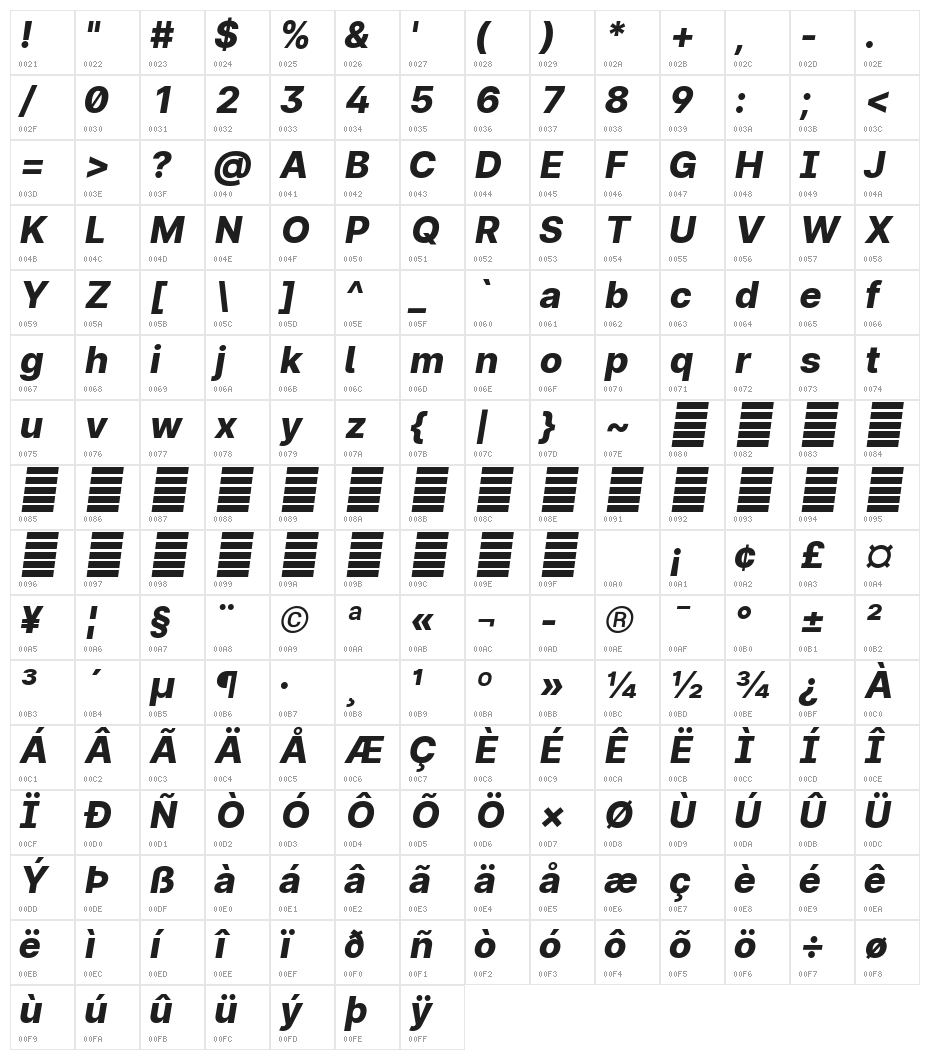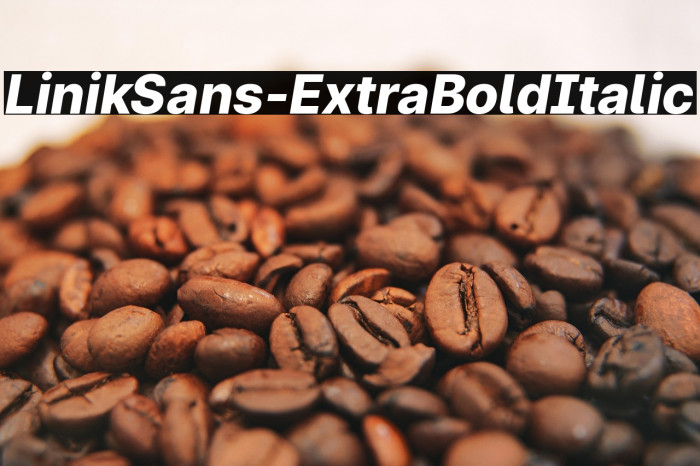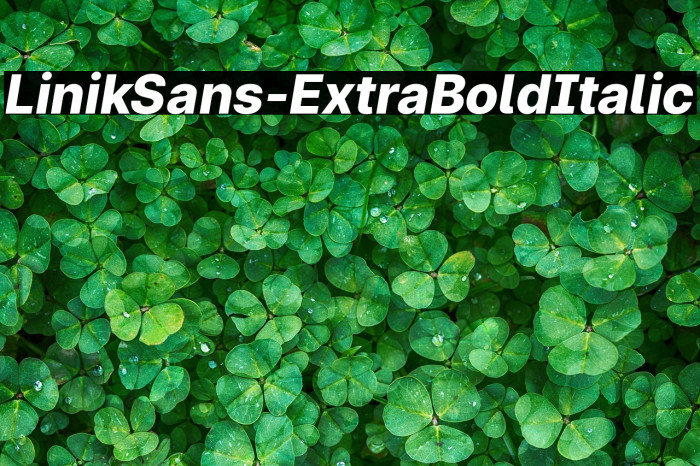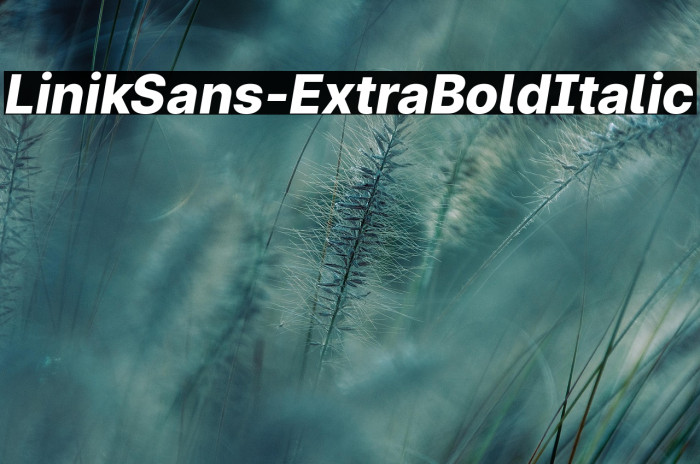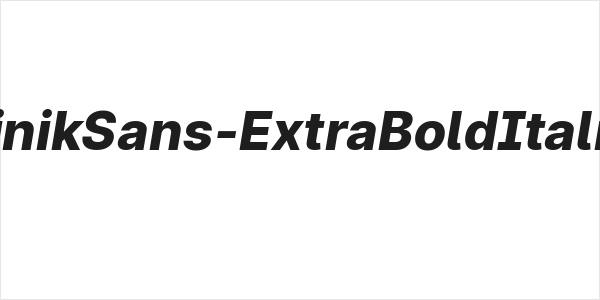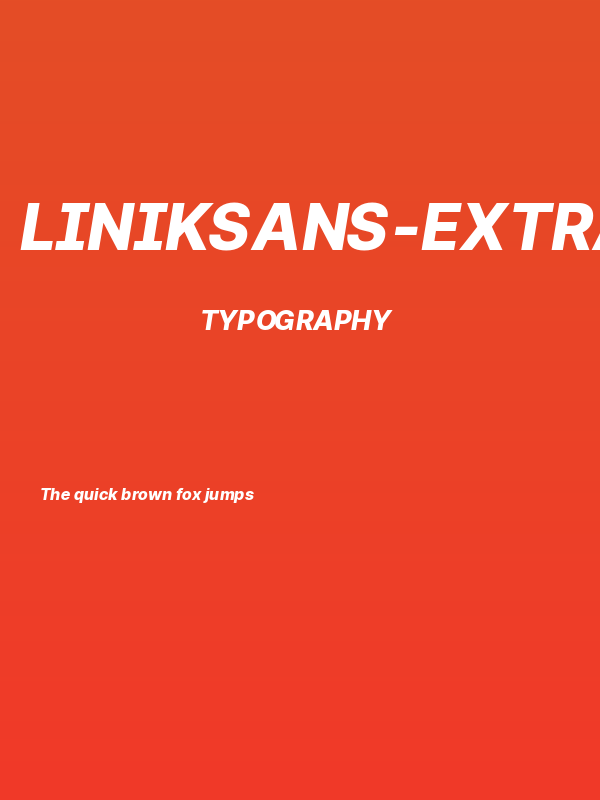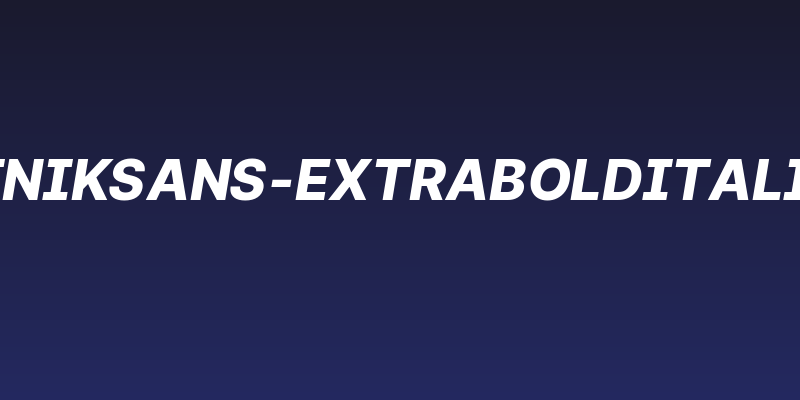
LinikSans-ExtraBoldItalic Font
LinikSans-ExtraBoldItalic Description
This font exhibits a bold and dynamic presence with its extra bold weight and italicized style. The characters are designed with a strong emphasis on thickness, providing a powerful visual impact. The italic slant adds a sense of motion and modernity, making it suitable for contemporary designs. The uppercase and lowercase letters maintain consistent proportions, ensuring readability. The numerals are clear and distinct, while the special characters are well-integrated, enhancing the font's versatility.
| Use Case | Headlines, Logos, Advertising |
| Proposed Projects | Ideal for branding, advertising, headlines, and any project requiring a strong visual impact. |